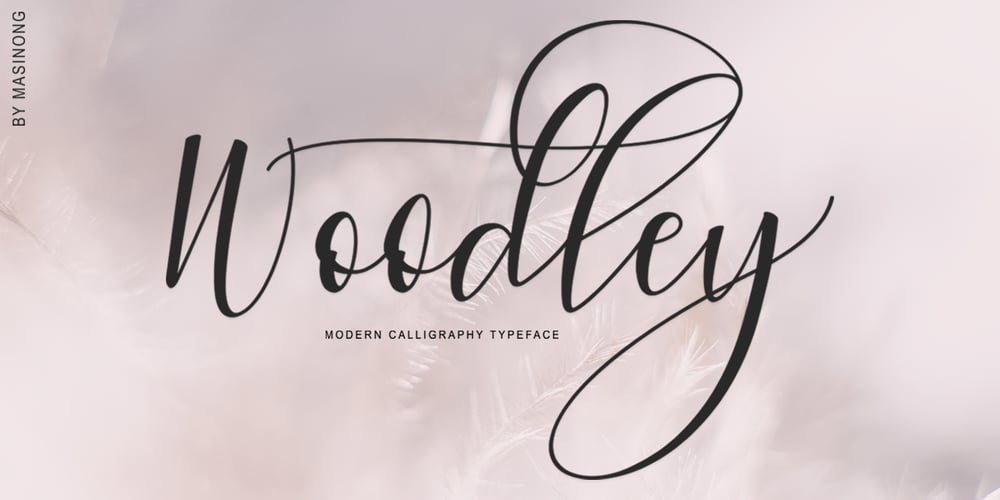
Woodley
Woodley font
Woodley Font Family was designed by Fajriadi and published by Masinong Studio. Woodley contains 1 styles and family package options. Woodley Script is a modern calligraphy font with the current handwriting style, this font is perfect for branding, wedding invites, magazines, mugs, business cards, quotes, posters, and more. Woodley Script is equipped with 589 glyphs. and by having many of these glyphs there will be able to choose the letters according to your likes, lots of variations and options for each letter, so you can customize on your design choices. To access the variety of OpenType features you can use applications such as Adobe Photoshop Cs / Adobe Photoshop CC, Adobe Illustrator CS / Adobe Illustrator CC, Adobe Indesign and Corel Draw. If you do not have a program that supports OpenType, you can access all the alternate glyphs using Font Book (Mac) or Character Map (Windows) If you have any question, do not hesitate to contact me by email masinong.studio@gmail.com Thanks and happy designing 🙂